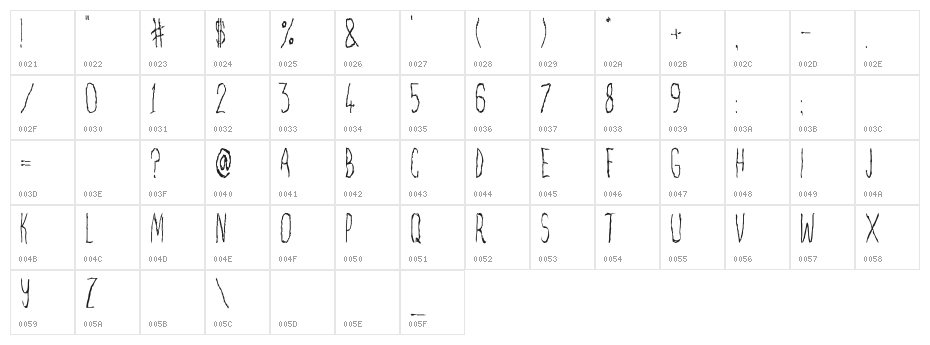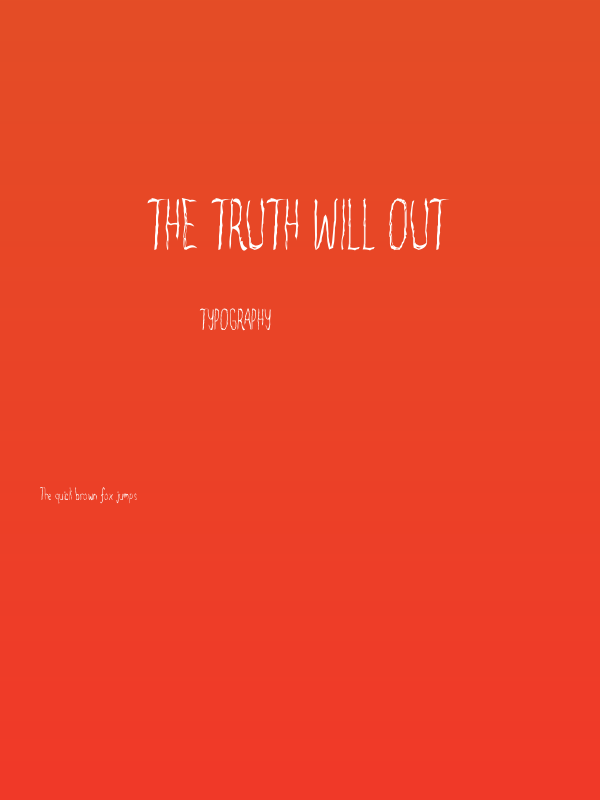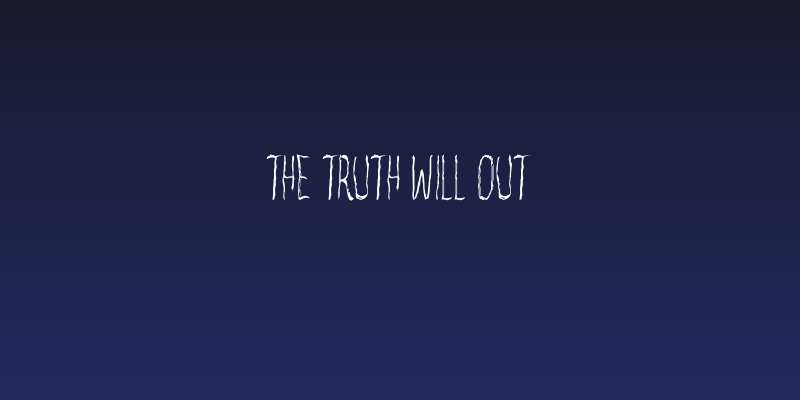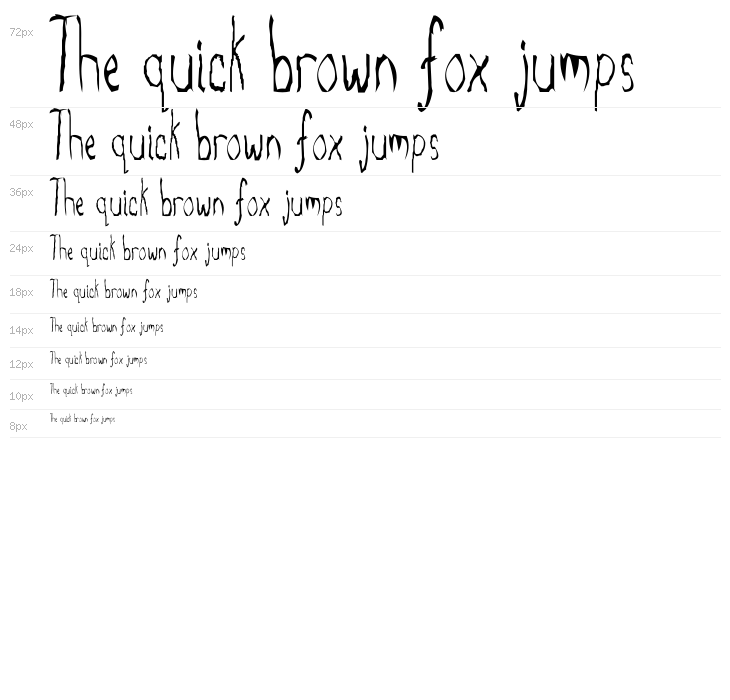
The Truth Will Out Font
This font features a unique, hand-drawn style with irregular, jagged edges that give it a raw, organic feel. The characters are tall and narrow, with varying stroke widths that create a sense of movement and energy. The uppercase and lowercase letters maintain a consistent style, while the numbers and special characters blend seamlessly into the overall design. This font's distinctive appearance makes it ideal for projects that require a touch of individuality and creativity.
| Proposed Projects | Ideal for album covers, artistic posters, and creative branding projects. |